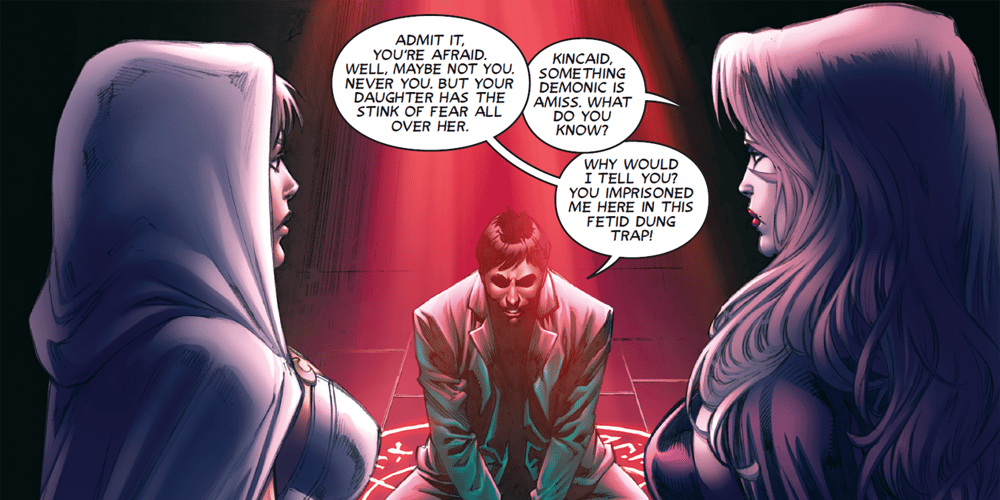
Comic Wayward Font Family was designed by Marshall Dillon and published by First Draft Press. Comic Wayward contains 6 styles and family package options. Introducing Comic Wayward, a typeface that brings the timeless appeal of hand-lettered comics into the modern age. Drawing inspiration from the legendary styles of classic comic book letterers, Comic Wayward strikes the perfect balance between clarity, legibility, and a handcrafted feel, making it ideal for today’s comic artists and designers.Comic Wayward has been featured in acclaimed comic book series such as Jim Zub & Steven Cummings’ WAYWARD from Image Comics and Brian Pulido’s LADY DEATH from Coffin Comics. Its use in these popular titles attests to its professional quality and versatility in enhancing storytelling.This font family is highly versatile, designed to enhance dialogue, narration, and even sound effects in comics and graphic novels. Whether you’re working on a superhero saga, a slice-of-life webtoon, or a fantasy epic, Comic Wayward has you covered.The font family includes three essential styles: Regular: Clean and crisp, this style ensures that dialogue flows effortlessly while maintaining a personal, hand-crafted look. Italic: Perfect for inner monologues, thoughts, or emphasis, the slightly slanted Italic style adds depth to the storytelling without sacrificing readability. Bold Italic: When drama peaks and dialogue needs more weight, the Bold Italic style commands attention, making it ideal for action-packed scenes or pivotal moments. In addition to the core Comic Wayward styles, you’ll find two Runic fonts—Elder and Younger—adding an ancient, mystical element to your designs. These fonts are perfect for fantasy comics, role-playing games, or any project that requires a sense of historical or magical authenticity.For those looking to infuse magic and mystery into their work, the Aline/Magic font offers a whimsical, otherworldly touch. It’s ideal for designing spellbooks, mystical symbols, or enchanted titles, and pairs well with the Comic Wayward family to add even more creative possibilities to your projects.Why choose Comic Wayward? Proven Excellence: Trusted by professional comic creators, this font family has a track record of enhancing storytelling in published works. Versatile Applications: Ideal for comics, graphic novels, storyboards, posters, logos, and branding that requires a playful, hand-crafted look. Unique Pairings: The addition of Runic and Aline/Magic fonts allows for creative combinations, making your designs stand out with a blend of classic and mystical charm. Functional Design: With balanced letterforms and ample spacing, the font remains legible in both large and small sizes, suitable for print and digital media. Whether you’re crafting a modern comic, designing a fantasy-themed game, or working on a branding project, Comic Wayward and its companion fonts offer endless creative possibilities. Let your designs come to life with fonts that blend the past, present, and the mystical future.